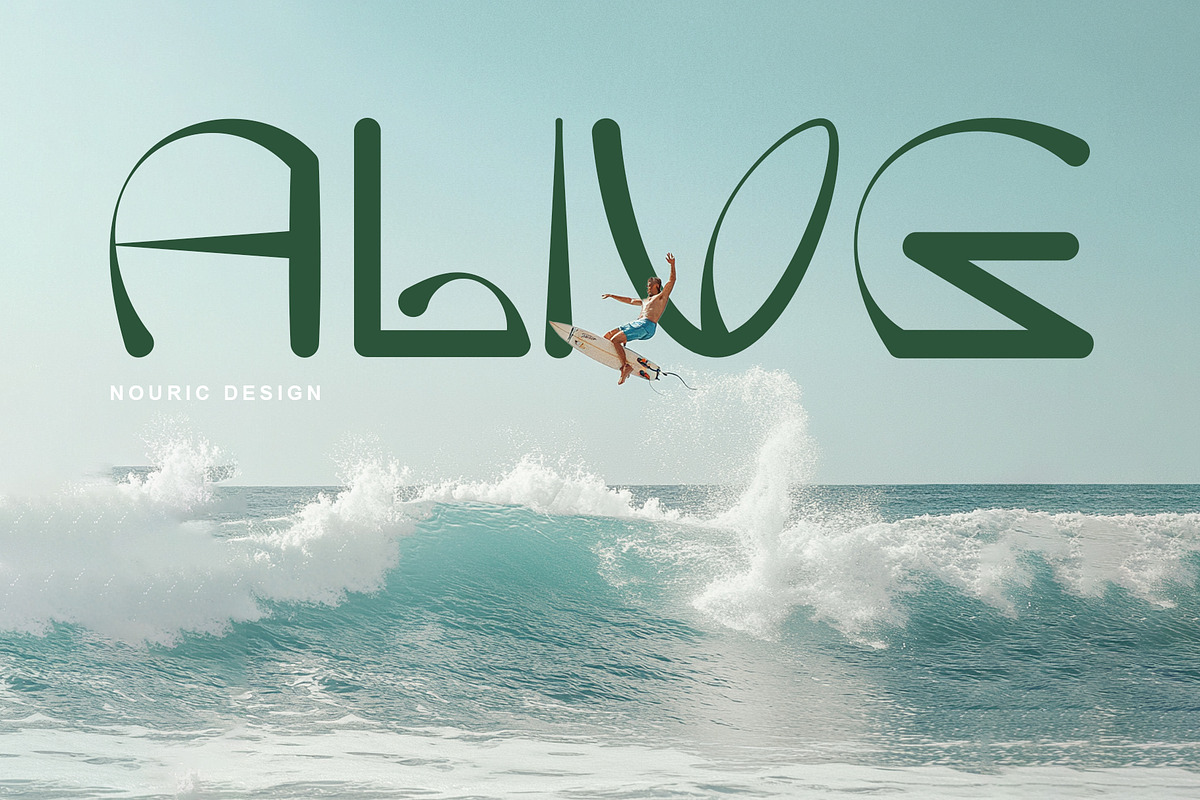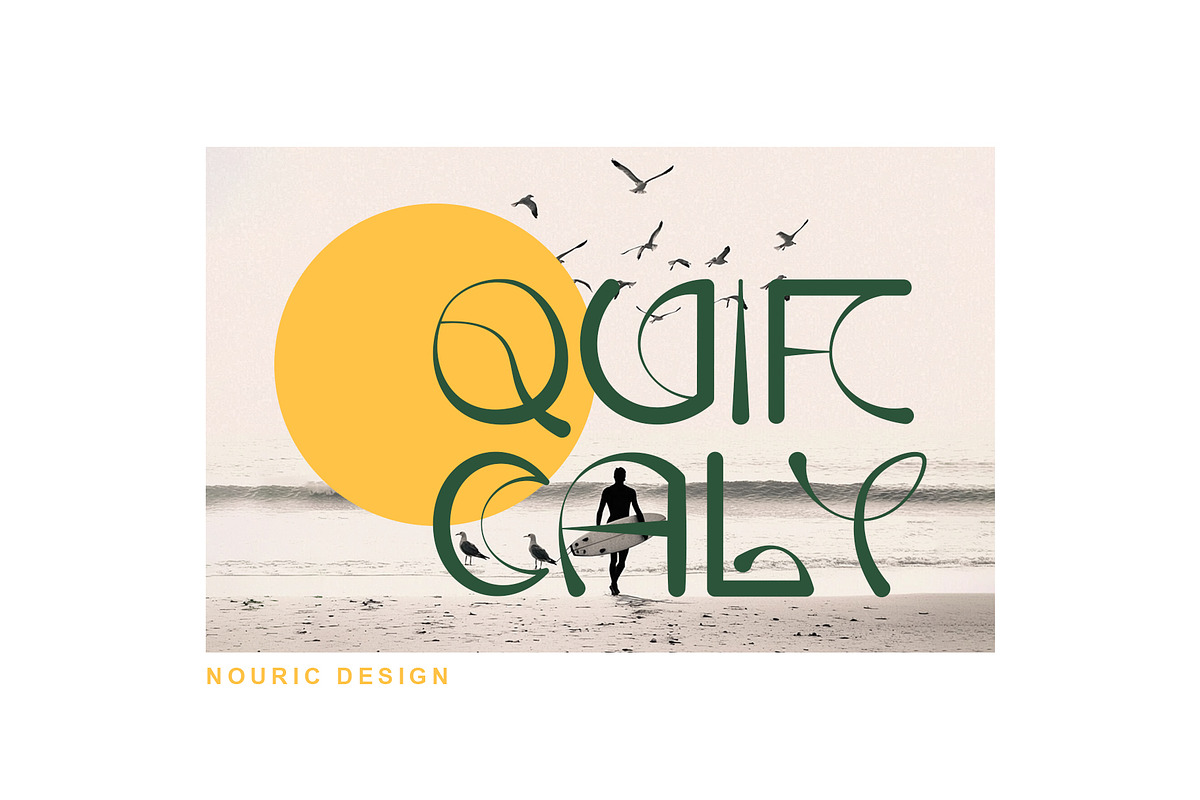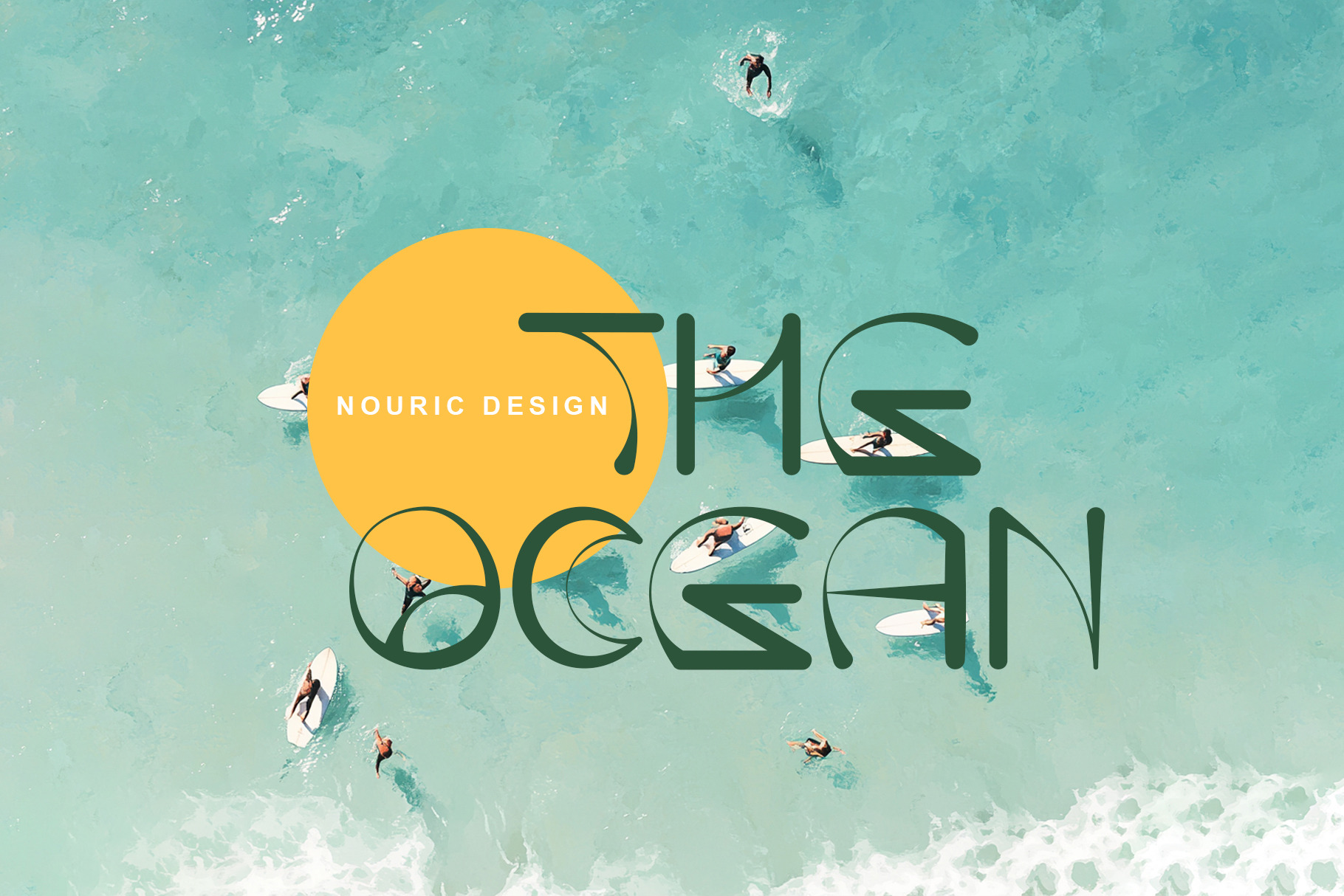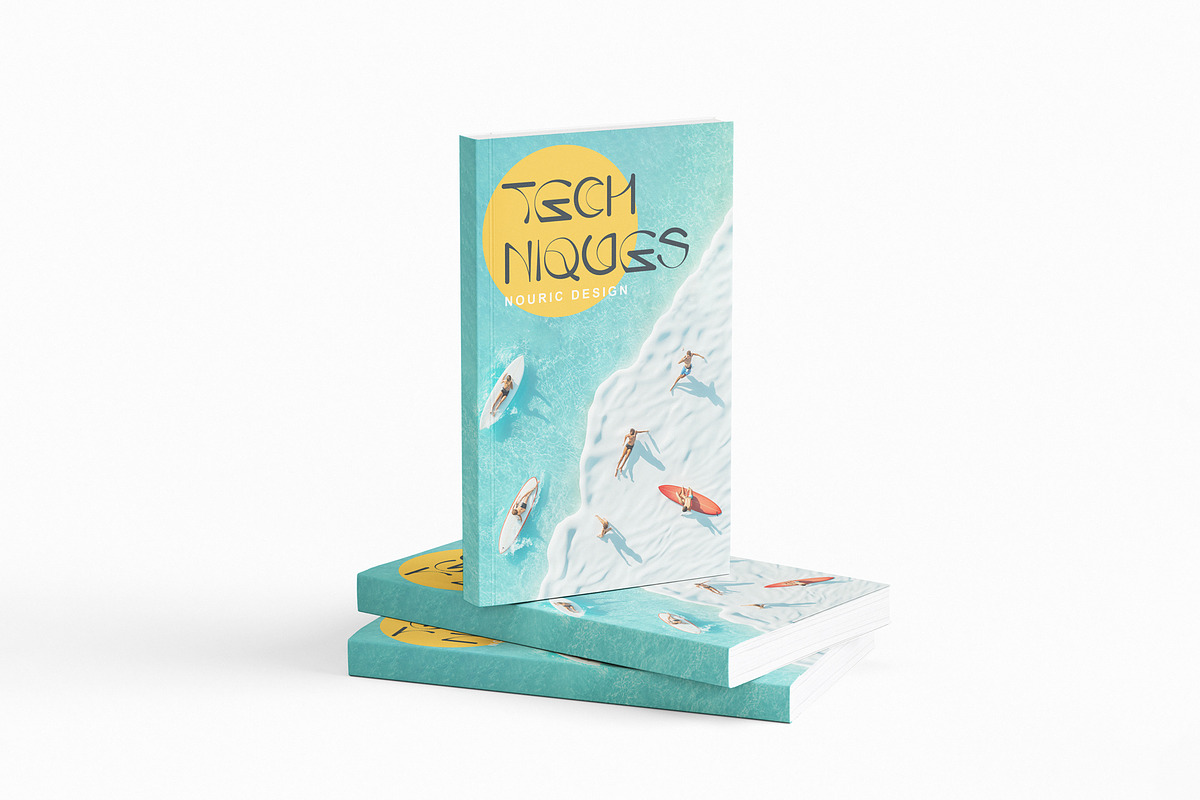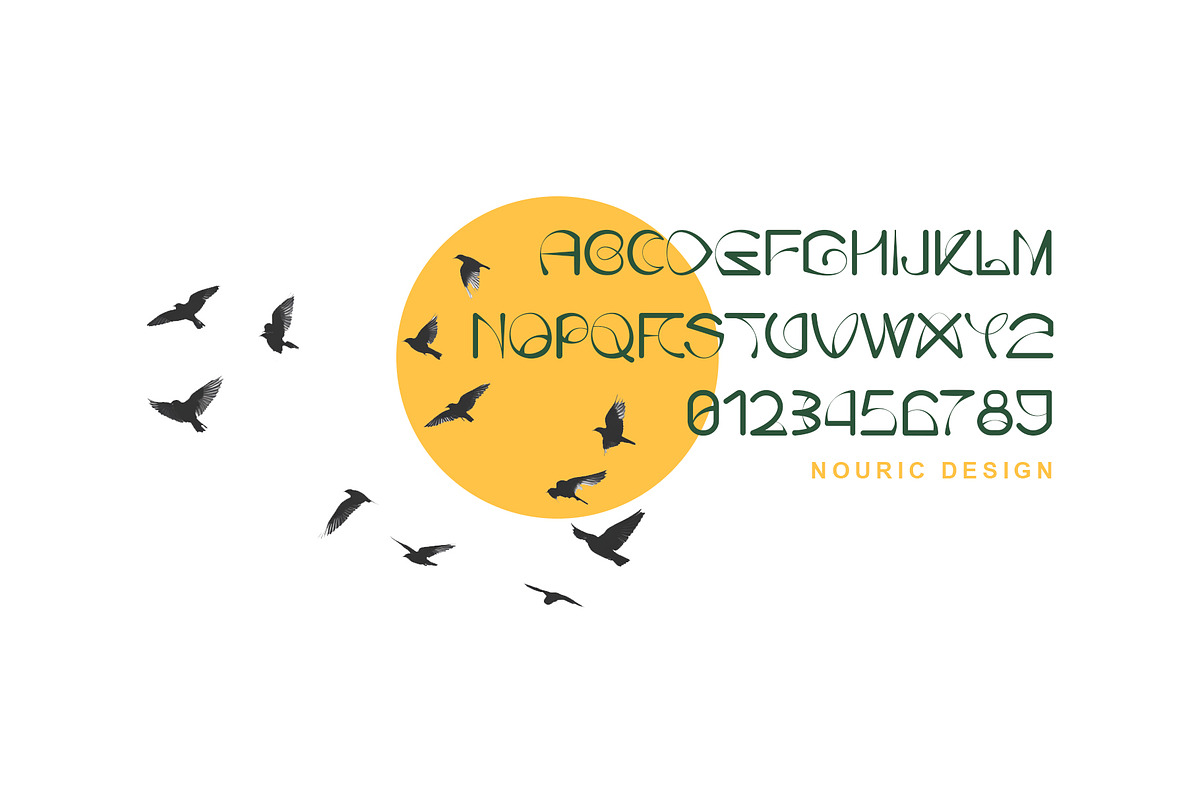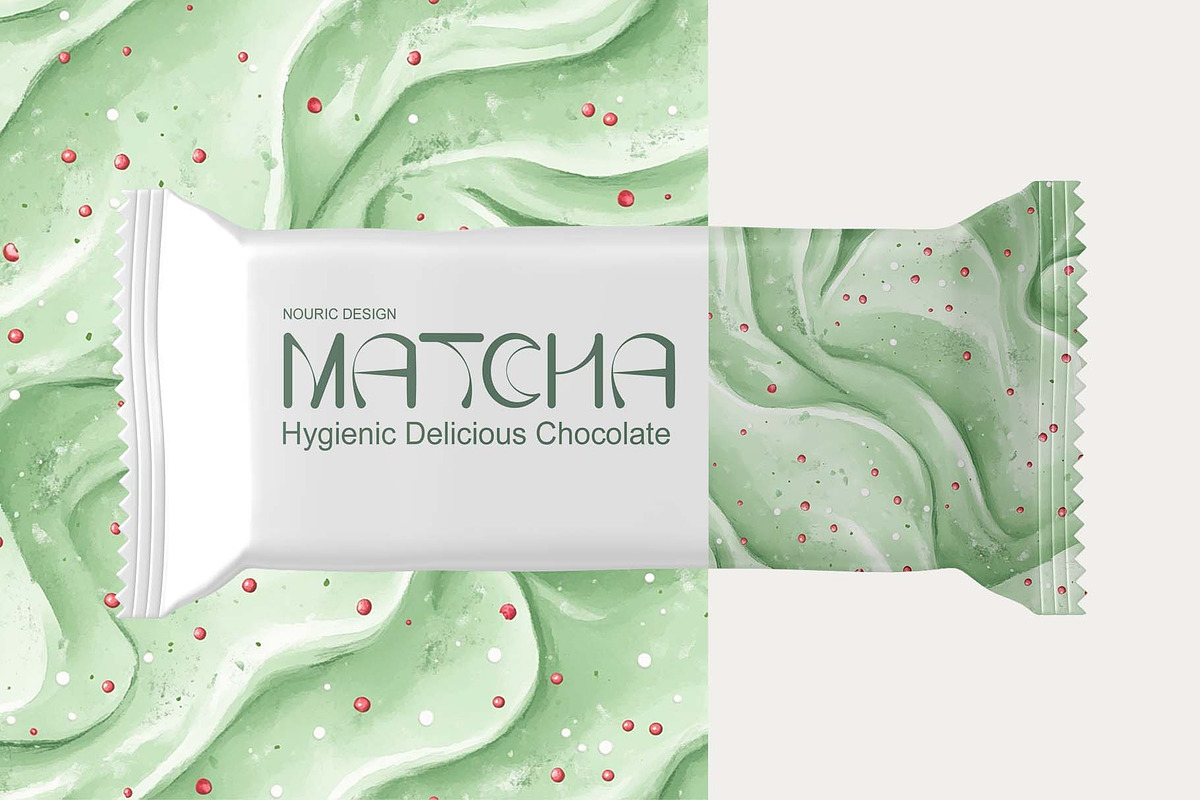
Quircaly The Ultimate Quirky Font
Introducing The Ultimate Quirky Font!
Step into a world of playful creativity with the font designed to bring joy and uniqueness to your projects. Whether you're crafting invitations, designing posters, or creating eye-catching social media graphics, this font is your perfect companion.
With its charmingly irregular shapes and whimsical flair,adds a touch of fun and personality to every word. Each letter dances with its own quirky rhythm, making your text come alive in a delightful and memorable way.
- Unique Character Designs: Every letter boasts its own playful style, ensuring your text stands out.
- Versatile Use: Perfect for children's books, greeting cards, branding, and more.
- Basic Latin character set
- Advanced Latin character set
- Basic Cyrillic character set
- Advanced Cyrillic character set
- Open & Close Punctuation
- Dashes & Quotes
- Currency
- Math Symbols